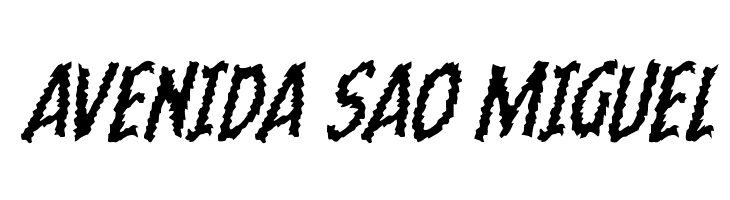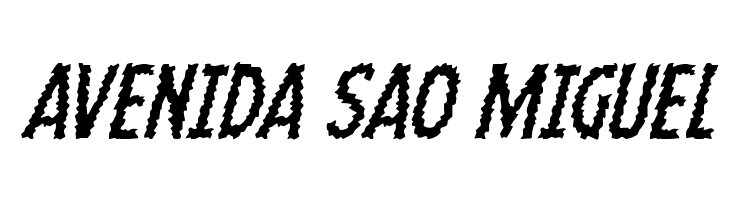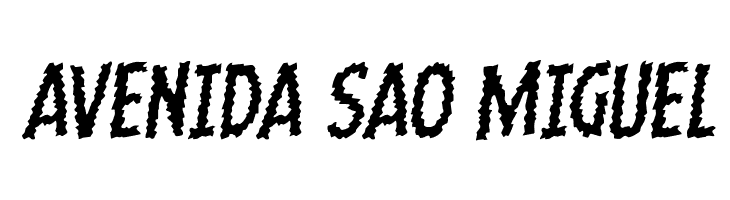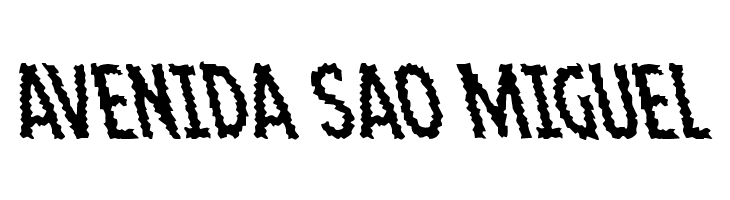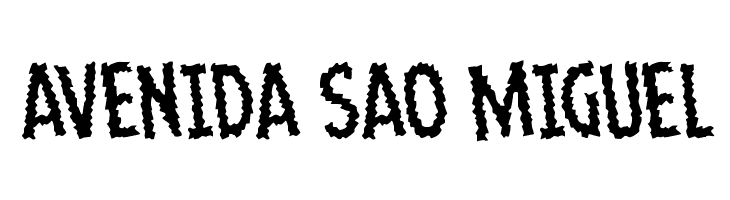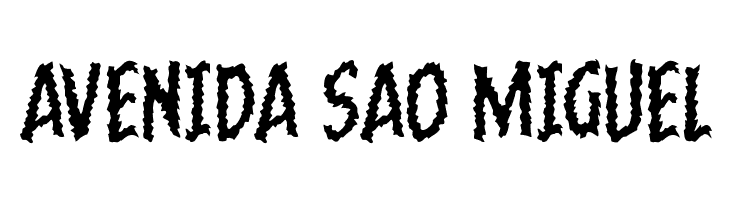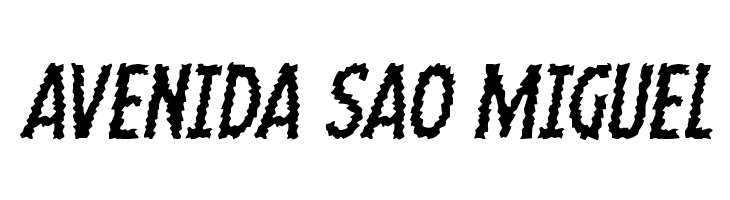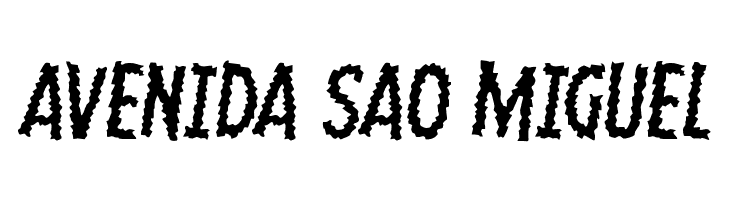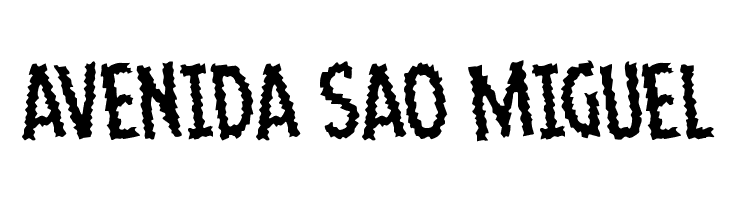
• Ampire Expanded
A bold, jagged font with an edgy, hand-cut appearance.
• Ampire Expanded Italic
A bold, expanded italic font with jagged edges for a dynamic and edgy appearance.
• Ampire Gradient
A bold, gradient-style font with horizontal line textures for a dynamic look.
• Ampire Gradient Italic
A modern, italic font with a gradient effect and dynamic horizontal lines.
• Ampire Halftone
A bold, halftone-textured font with a dynamic, distressed appearance.
• Ampire Halftone Italic
A bold, italicized font with a halftone effect, perfect for dynamic and eye-catching designs.
• Ampire Italic
A bold, jagged italic font with a dynamic, hand-drawn appearance.
• Ampire Leftalic
A bold, jagged, and dynamic font with a distressed style.
• Ampire Rotalic
A bold, jagged font with dynamic, slanted characters.
• Ampire Rotated
A jagged, bold font with a dynamic and edgy design.
• Ampire Rotated 2
A bold, jagged font with a dynamic and energetic style.
• Ampire Semi-Italic
A bold, jagged, and italicized font with a dynamic and modern style.
• Ampire Staggered
A bold, jagged font with a dynamic, zigzag pattern.
• Ampire Staggered Italic
A bold, staggered italic font with jagged edges and dynamic style.
• Ampire Staggered Rotalic
A bold, staggered font with a jagged, energetic style.
• Ampire Staggered Rotated
A bold, jagged font with a rugged, hand-cut appearance.
• Ampire Super-Italic
A bold, italic font with a jagged, energetic style.
• Ampire Warped
A bold, jagged font with a dynamic, edgy style.
• Ampire Warped Italic
A bold, warped, and italicized font with jagged strokes and dynamic movement.
• Ample Script Regular
A bold, brush script font with an expressive and hand-painted style.
• AmpleScript-Regular
A bold, brush-style script font with dynamic and expressive strokes.